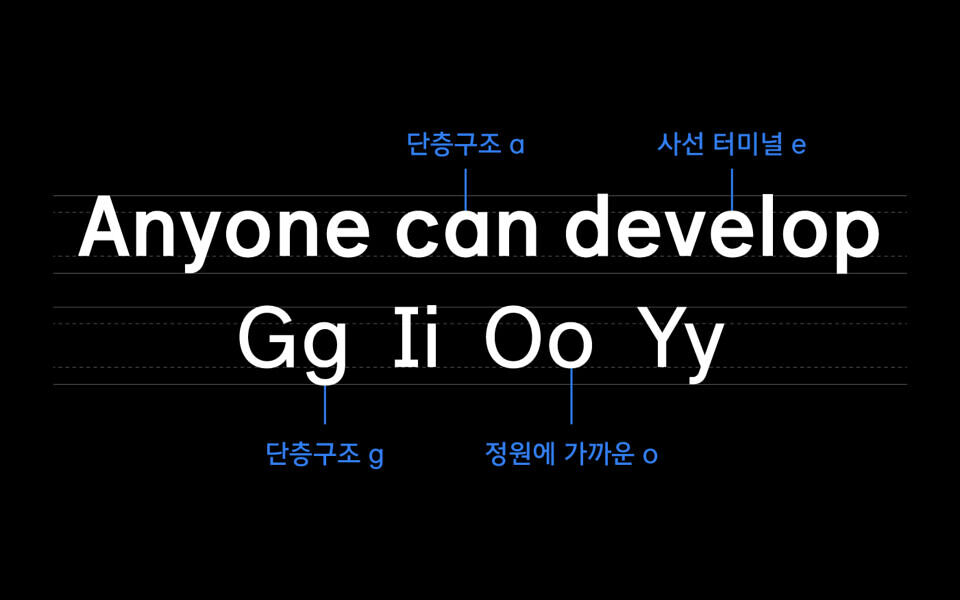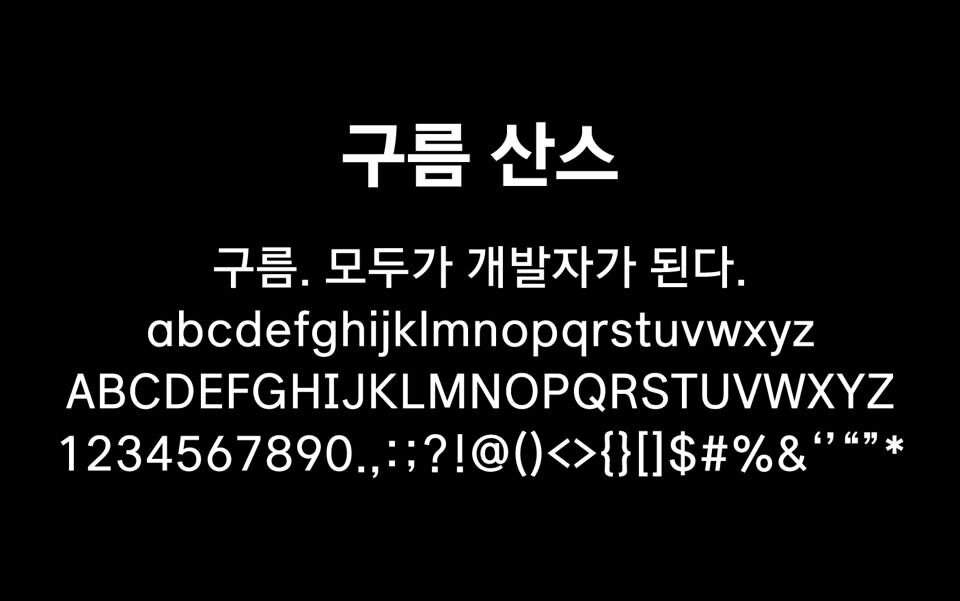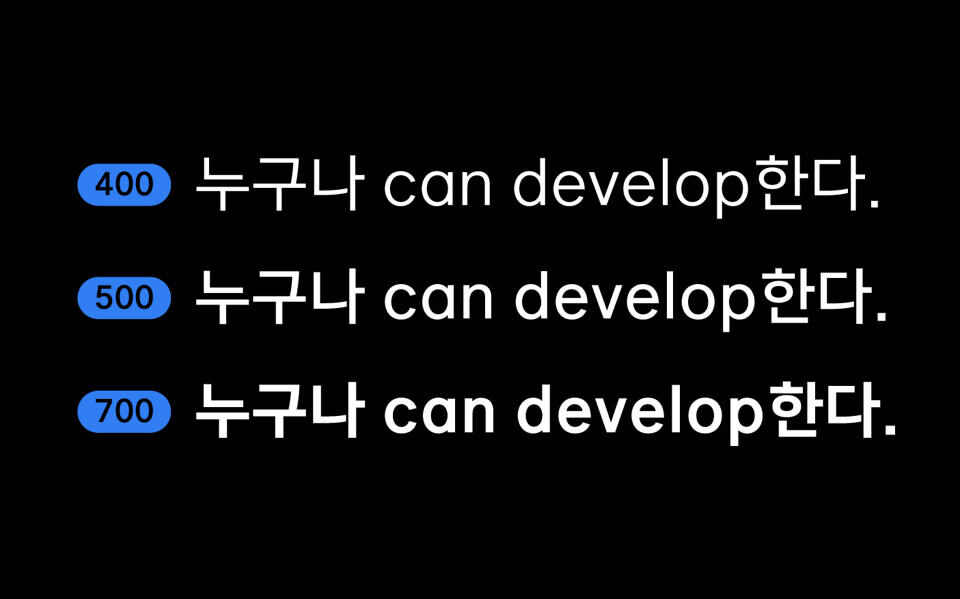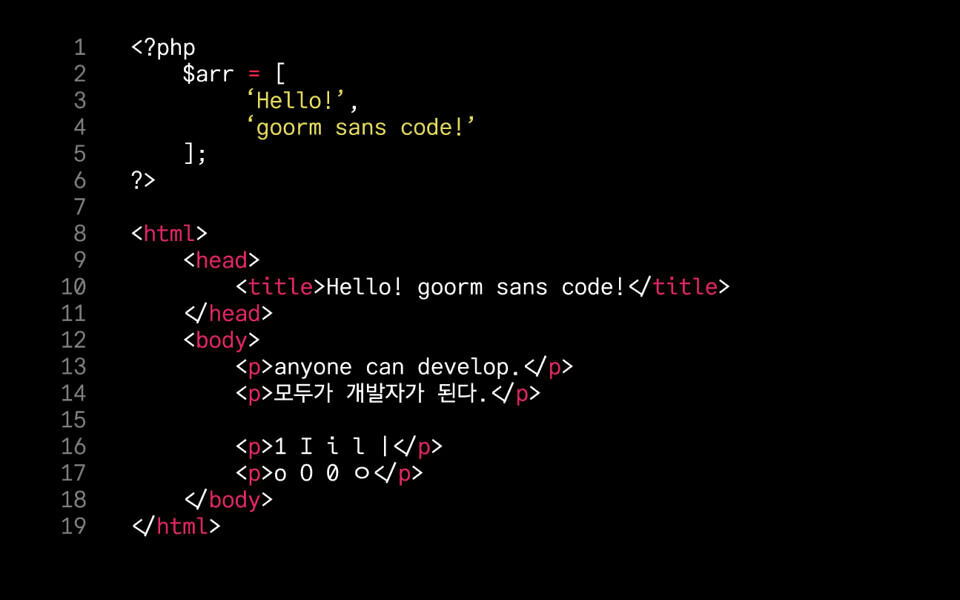
Goorm Sans and Goorm Sans Code are modern, versatile fonts designed for clarity and harmony. Goorm Sans blends Korean and English typography seamlessly, offering weights of 400, 500, and 700 for diverse applications.
Goorm Sans Code, tailored for developers, ensures legibility in coding environments with a monospaced design. Both fonts are optimized for digital interfaces, providing a clean, professional aesthetic for web, app, and programming use.